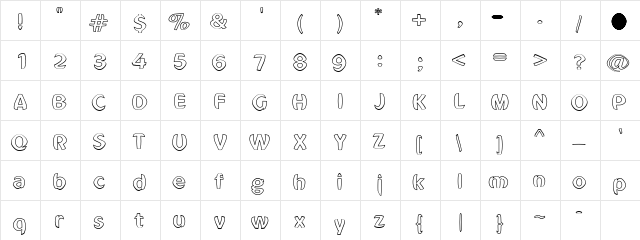
Dross06Hollow Regular Font Preview
Dross06Hollow Regular
Design Context for Dross06Hollow Typeface
Dross06Hollow is a composed and adaptable typeface that performs quietly and consistently across a wide range of design contexts.